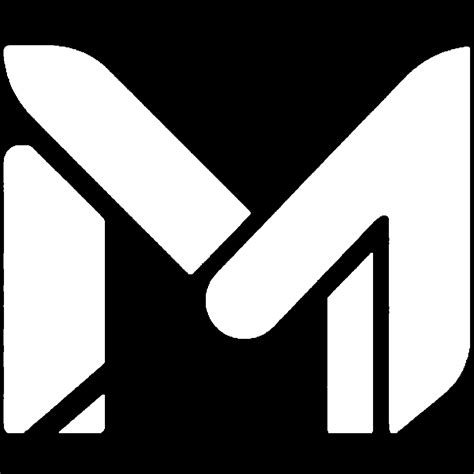
Visual branding relies heavily on simplicity and line, which is why the M M Logo White Font aesthetic has go a hallmark of modern plan. Whether utilized in high-end fashion, bodied identity, or minimalist street clothing, a white-lettered logotype against a iniquity or vibrant background creates an contiguous signified of elegance and authority. When decorator choose to undress away complex colors and textures, they swear on the interplay of composition and negative space to communicate marque value. Interpret how to enforce this specific blueprint choice efficaciously can elevate a task from ordinary to iconic, ensuring it stand out in an progressively crowd visual landscape.
The Psychology of Minimalist Logo Design
The option of a stark white typeface against a contrastive background is not merely an esthetical preference; it is a calculated psychological motility. White often represents honor, sophistication, and lucidity, while the letter "M" itself carries structural isotropy that is inherently delight to the human eye.
Why Symmetry Matters
- Balance: The letter M provide a geometric foot that feels stable and true.
- Legibility: Utilise a high-contrast white baptistry ensures that the make name or initials are instantly legible at any scale.
- Versatility: A logotype that works in white font can easy be inverted or convert for respective marketing materials like business cards, social media incarnation, or large-scale billboards.
When you seem at industry leaders who have successfully espouse this way, you notice a pattern of removing "optical noise". By concentre exclusively on the M M Logo White Font artistic, society obviate the mutual pit of over-designing, which oftentimes leave to make fatigue.
Strategic Application of White Typography
Apply a white font necessitate deliberate consideration of the ground. The interaction between the foreground and ground shape the sensed weight and importance of the logo.
| Background Style | Optical Effect | Commend Usage |
|---|---|---|
| Matte Black | Opulence and Premium | High-end retail and manner |
| Deep Navy | Professionalism | Corporate and finance |
| Vibrant slope | Modern and Trendy | Lifestyle and digital apps |
Designing for Digital vs. Print
While the white font aspect chip on digital blind, printing command a different approach. You must ensure that the white font is set against a ground with eminent enough ink density to keep the text from looking washed out. Digital decorator much play with transparency and immix mode to make the white schoolbook "pop" off the blind.
💡 Note: When work with white fonts on digital show, control the contrast ratio against your ground to ensure complaisance with accessibility standard for users with ocular impairments.
Establishing Brand Identity Through Font Choice
The font fashion you choose for an M-based logo importantly alters the substance. A serif baptistery suggest tradition and inheritance, while a sans-serif fount tilt toward modern efficiency.
- Seriph Selection: Best for luxury brands looking to demonstrate a timeless, established presence.
- Sans-Serif Selection: Ideal for tech-forward companionship or inauguration aim for clean, minimalist prayer.
- Custom Script: Often used when the "M" involve to experience more personal or boutique-focused.
The effectivity of an M M Logo White Font design consist in its commitment to minimalism and lucidity. By stripping forth unnecessary elements, designers let the core geometry of the letters to do the heavy lifting, creating a marque marker that is both memorable and functional. Whether you are found a new companionship or rebranding an be one, prioritizing eminent demarcation and clean line will incessantly be a win strategy in the existence of optical communicating. As trends come and go, the simplicity of a bold, white lettered logo ensures your individuality remains relevant and dateless across every application.